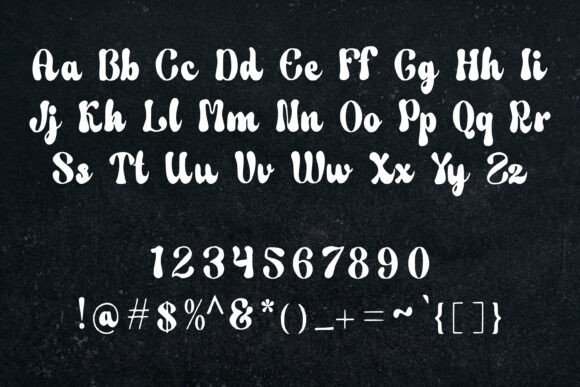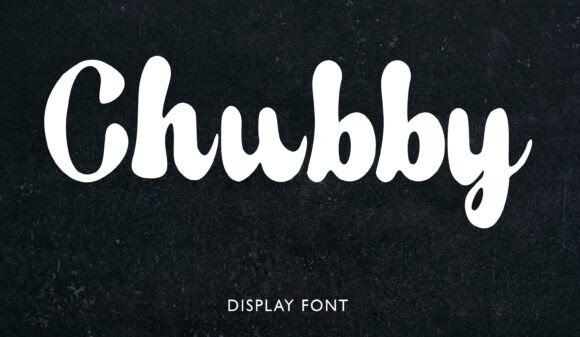
Discover the Versatility of Chubby Ink Font: Elevate Your Designs with a Unique Touch
Are you on the hunt for a font that can seamlessly adapt to your creative vision? Look no further than the captivating Chubby Ink Font. This versatile typeface is designed to complement a wide range of projects, making it the perfect addition to your design arsenal. Whether you’re aiming for elegance, modernity, playfulness, or a bold statement, Chubby Ink Font effortlessly adjusts to bring your ideas to life.
Unleash Your Creativity with Endless Possibilities
Chubby Ink Font is more than just a typeface – it’s a creative partner that empowers you to push the boundaries of your imagination. Its unique, polished aesthetic makes it an excellent choice for various applications, including:
- Branding: Establish a lasting impression with a font that exudes confidence and style. Chubby Ink Font helps you create a distinctive brand identity that resonates with your target audience.
- Book Covers: Draw readers in with a captivating font that sets the tone for your literary masterpiece. Chubby Ink Font adds a touch of sophistication and whimsy, making it perfect for fiction, non-fiction, and everything in between.
- Posters: Create eye-catching posters that demand attention. With Chubby Ink Font, you can craft bold, visually stunning designs that leave a lasting impact.
- Packaging: Elevate your product packaging with a font that adds a touch of elegance and refinement. Chubby Ink Font helps you create a premium look that stands out on store shelves.
- Merchandise: Add a unique flair to your merchandise, from t-shirts to tote bags, with a font that’s both stylish and versatile.
The Benefits of Chubby Ink Font
So, what sets Chubby Ink Font apart from other typefaces? Here are just a few benefits that make it an excellent addition to your design toolkit:
- Versatility: Chubby Ink Font adapts effortlessly to various design styles, ensuring that your creative vision is always realized.
- Uniqueness: Stand out from the crowd with a font that boasts a distinctive, polished aesthetic.
- Ease of Use: Chubby Ink Font is designed to be user-friendly, making it easy to integrate into your design workflow.
- High-Quality: Experience crisp, clear typography that looks stunning in various sizes and resolutions.
Bring Your Ideas to Life with Chubby Ink Font
Whether you’re a seasoned designer or a crafty DIY enthusiast, Chubby Ink Font is the perfect companion for your creative journey. Its unique blend of style, versatility, and polish makes it an excellent choice for:
- Graphic Design: Add a touch of sophistication to your brochures, flyers, and other marketing materials.
- Crafting: Create personalized gifts, such as handmade cards, invitations, and scrapbook pages.
- Digital Art: Incorporate Chubby Ink Font into your digital art projects, from illustrations to animations.
| Font Name | Chubby Ink Font |
| Author | Stitch & Bloom |
In conclusion, Chubby Ink Font is a game-changer for designers and crafters alike. Its versatility, uniqueness, and polish make it an excellent addition to any creative project. Whether you’re looking to elevate your branding, create stunning book covers, or add a touch of elegance to your packaging, Chubby Ink Font is the perfect choice. So why wait? Unlock your creative potential and bring your ideas to life with Chubby Ink Font today!